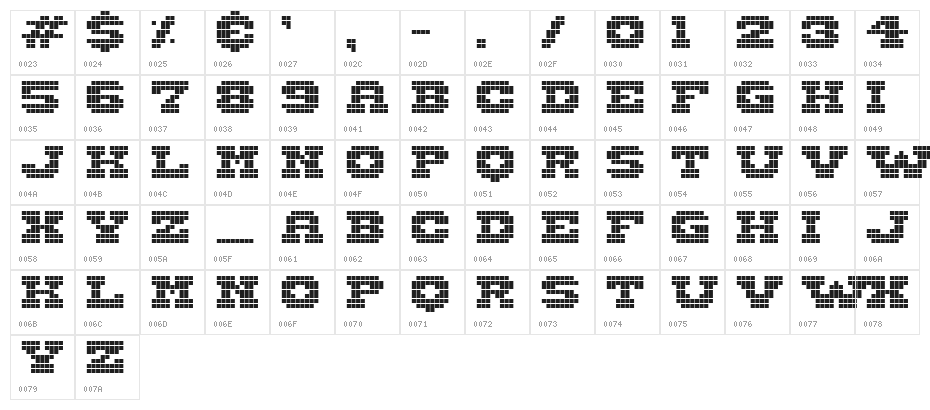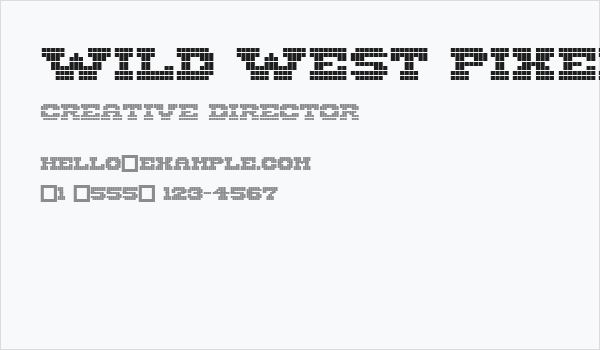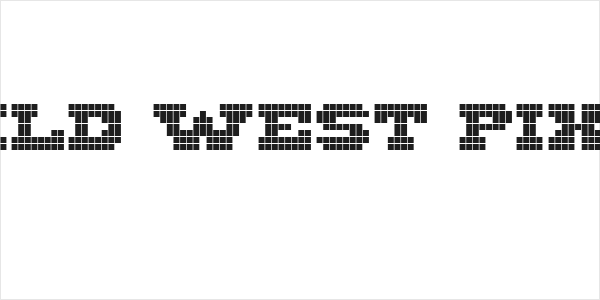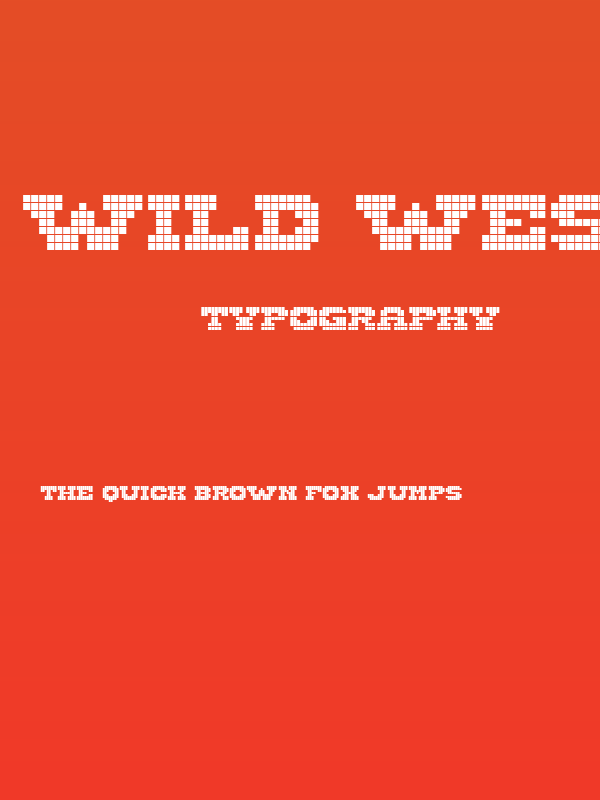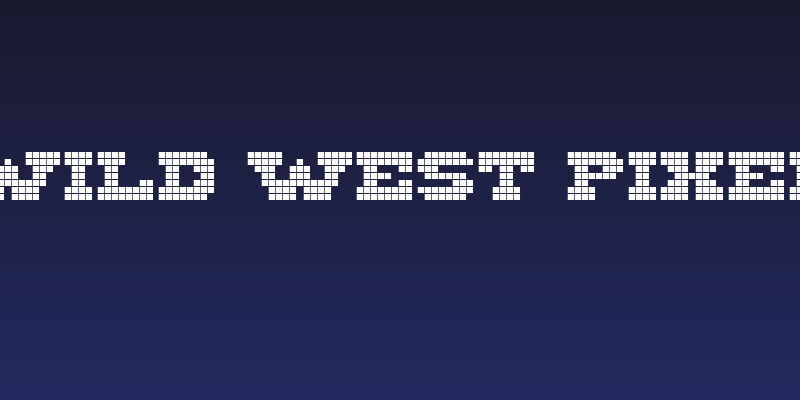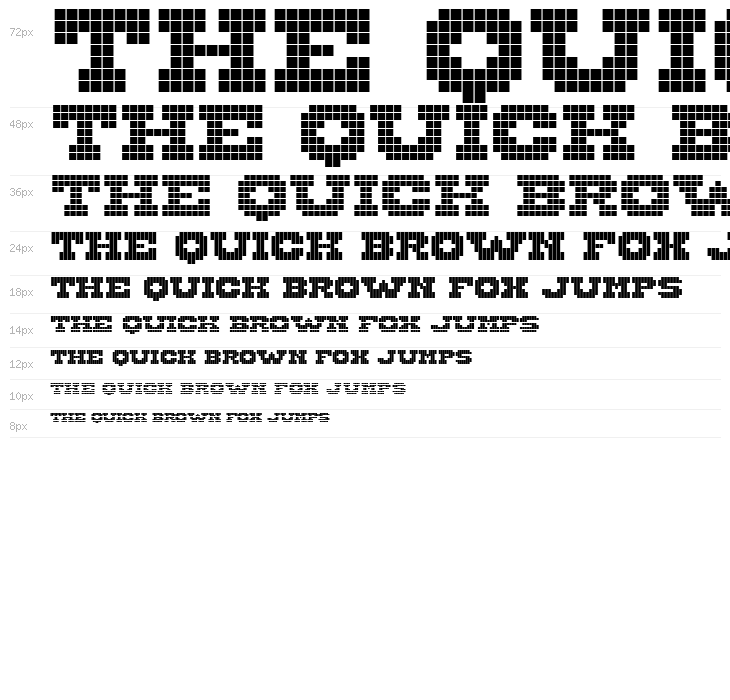
Wild West Pixel Font
Wild West Pixel Description
This font features a bold, pixelated design reminiscent of retro digital displays and video games. Each character is constructed from a grid of small squares, giving it a distinct blocky appearance. The style is consistent across uppercase and lowercase letters, as well as numbers and special characters, maintaining a uniform pixelated aesthetic. The font's design evokes a sense of nostalgia, making it ideal for projects that aim to capture a vintage or retro digital feel. Its bold and striking appearance ensures high visibility and impact, making it suitable for attention-grabbing headlines or titles.
| Overall Style | Retro, Digital |
| Proposed Projects | Ideal for video game designs, retro-themed posters, digital art projects, and any creative work that seeks to evoke a nostalgic digital era. |